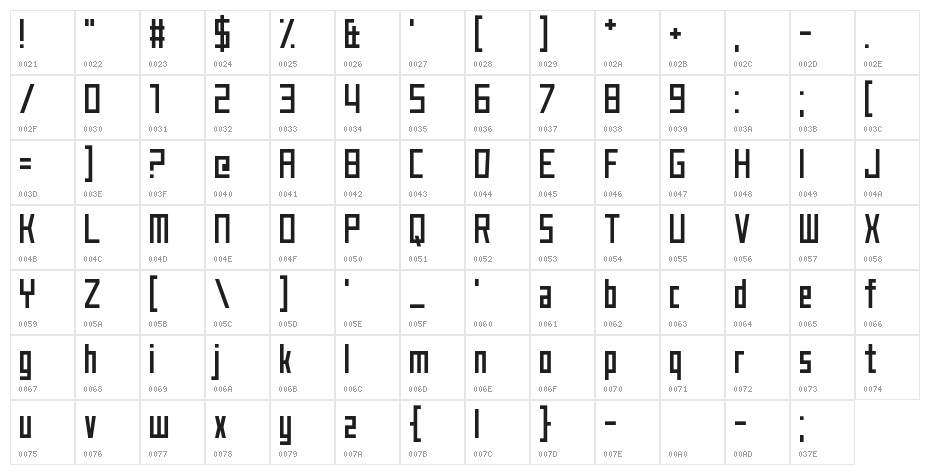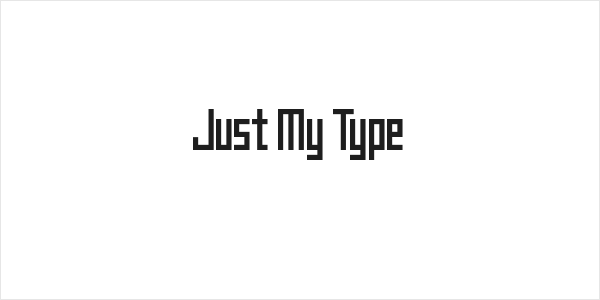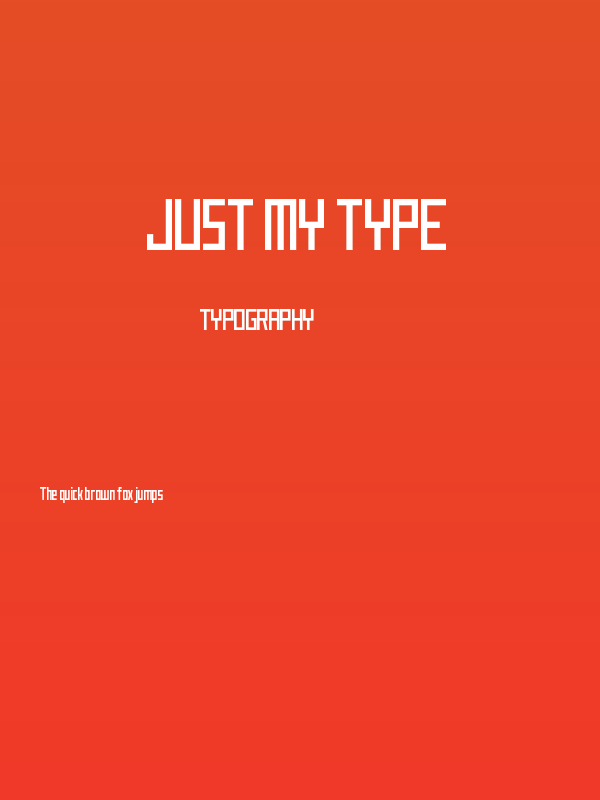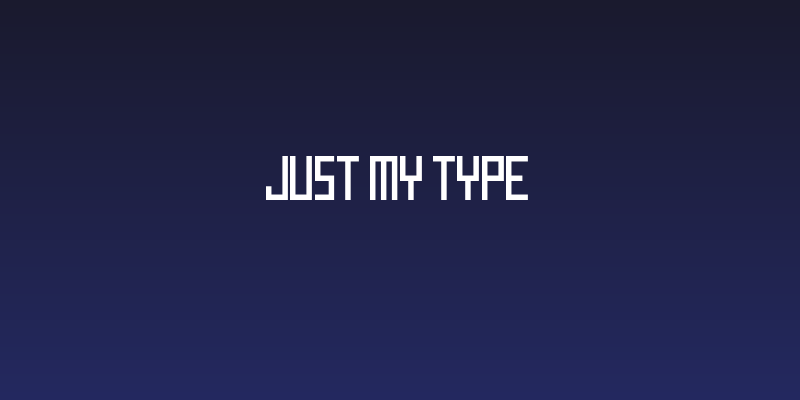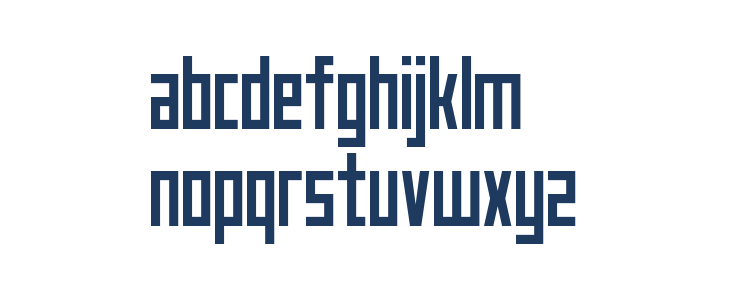
Just My Type Font
Just My Type Description
This font features a bold, geometric design with a strong emphasis on straight lines and right angles. The characters are uniformly structured, giving a sense of precision and modernity. Uppercase and lowercase letters maintain a consistent height, contributing to a cohesive appearance. The numerals and special characters are crafted with the same geometric precision, ensuring uniformity across all glyphs. The font's blocky style is reminiscent of digital or retro aesthetics, making it suitable for projects that require a futuristic or tech-inspired look. Its boldness ensures high readability, even at smaller sizes, while the uniform width of the strokes provides a balanced visual weight.
| Proposed Projects | Ideal for digital interfaces, tech branding, video game graphics, and futuristic posters. |